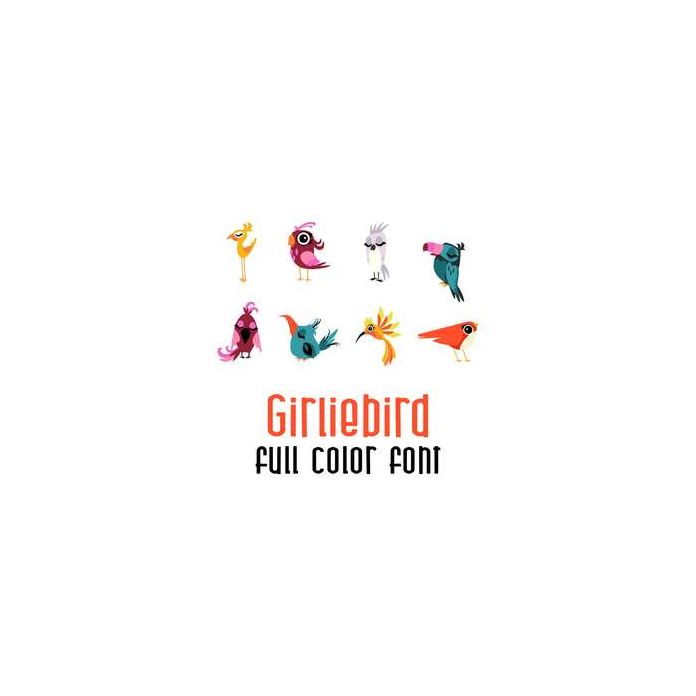
This adorable full color doodlebat font features cute tropical birds. Perfect for cards, crafts, gifts, decor, scrap book pages, planner stickers and more!